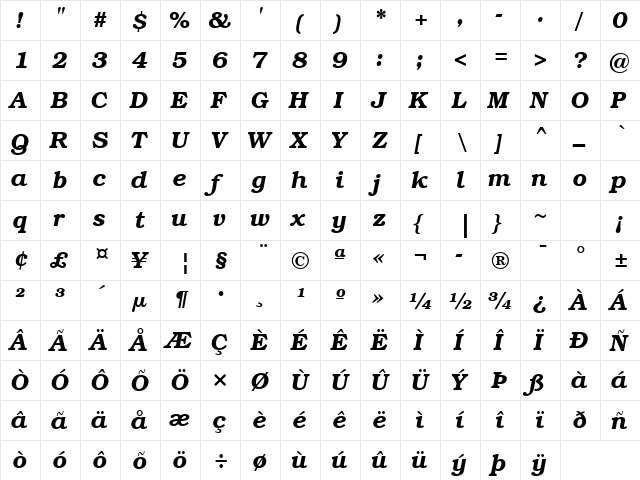
ITC Bookman SWA Demi Italic
Design Context for ITC Bookman SWA Typeface
ITC Bookman SWA offers clean, dependable letterforms without strong stylistic allegiance, making it a practical choice for designers who need flexibility. The dynamic lean of this cut emphasises speed and emphasis in any layout.
Pro Tip: Try ITC Bookman SWA for annotation and caption copy alongside an upright companion — the contrast in angle creates a dynamic but ordered typographic system.